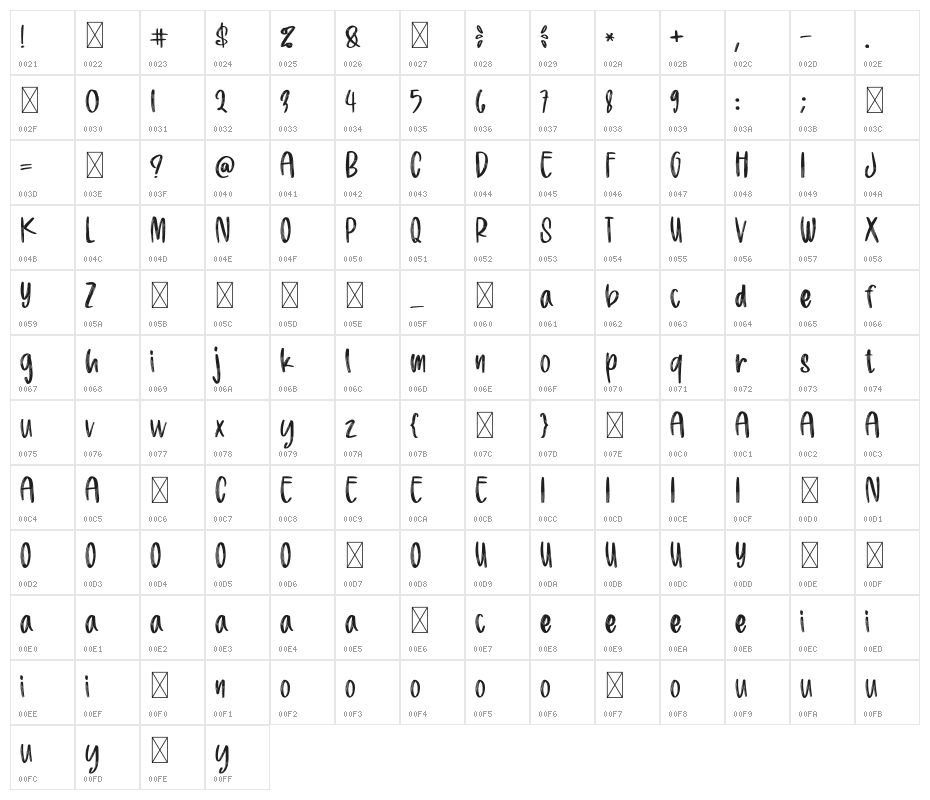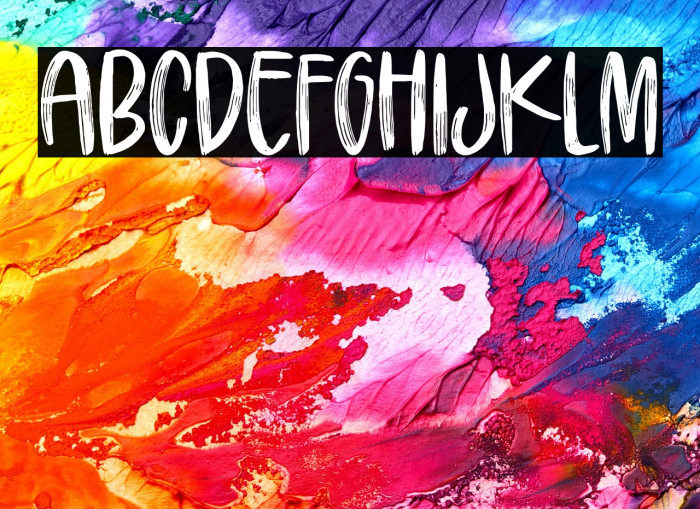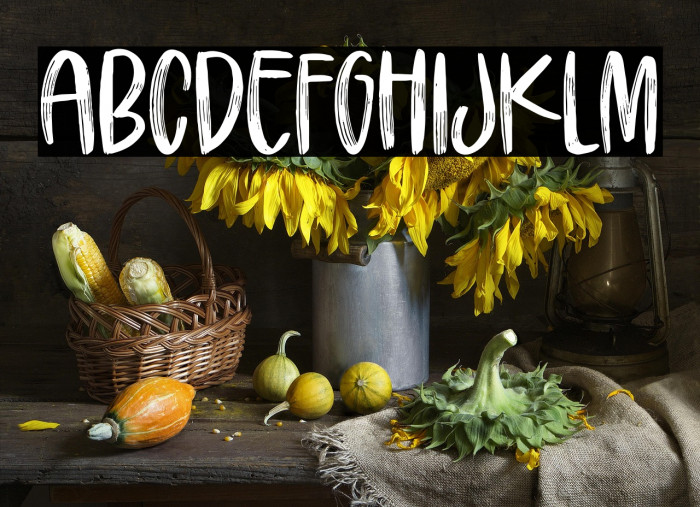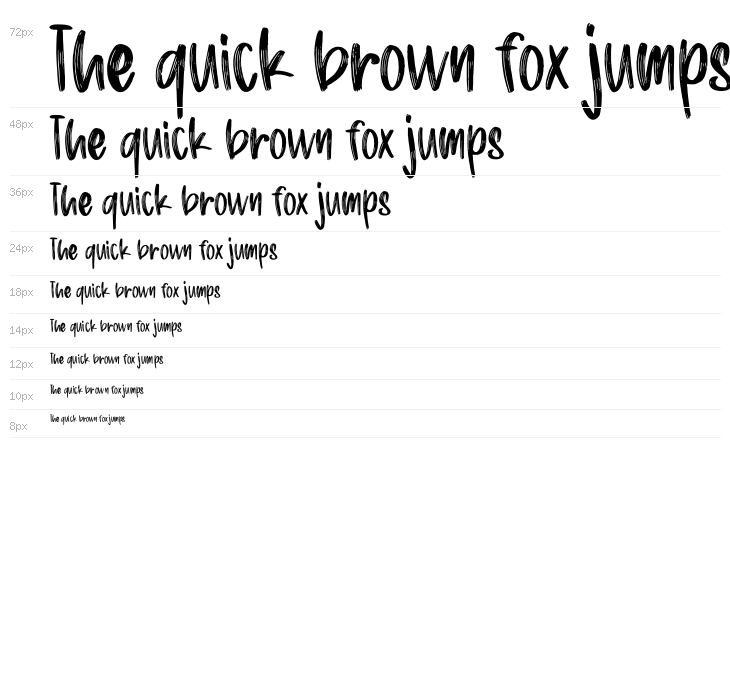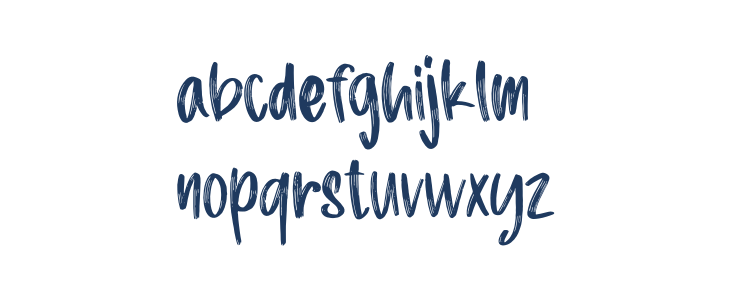
Hanindya Font
Hanindya Description
This font features a bold, brush-like style with a hand-drawn appearance, giving it a dynamic and energetic feel. The uppercase letters are tall and slightly narrow, while the lowercase letters maintain a consistent flow with a casual, informal touch. The strokes vary in thickness, adding a sense of movement and texture. The numbers and special characters follow the same brush-like aesthetic, ensuring a cohesive look across all elements. This font is ideal for projects that require a personal, artistic touch, such as invitations, posters, or branding materials.
| Use Case | Logos, Headlines, Posters |
| Proposed Projects | Ideal for artistic projects like invitations, posters, and branding materials. |